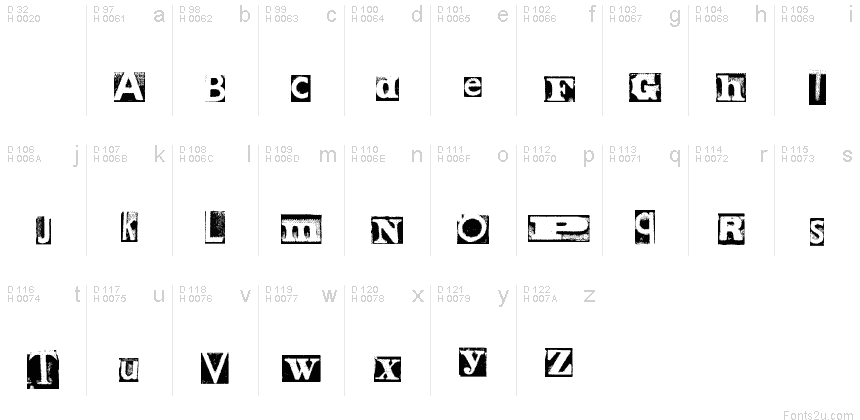
Metal Block Zero from Xerographer Fonts is a free eroded display font with the mismatched weight and cut-paper look of ransom-note lettering. Rough speckling, chipped edges, and abrupt shifts between serif and blocky forms give each letter the feel of a salvaged print sample.
Music labels and streetwear brands can use it for posters, packaging, and merchandise. In editorial design, it can turn a magazine opener into part of the imagery, echoing photocopied clippings and distressed print.